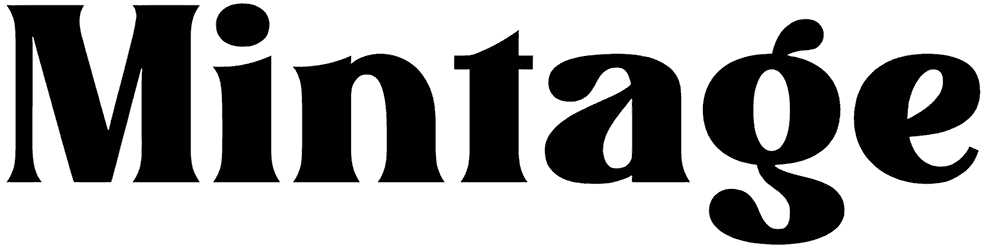
Mintage Font
As a nice basic font, Mintage will add a contemporary touch to your digital designs. It’s used for everything, from paper and clothing to notes and invitations.
Call on a Mintage font to adorn your typography face as much as possible with a retro design to elicit cool emotions. Take on this serif font if you and your client are both looking for a new creative challenge, and you may be pleasantly surprised with the results.